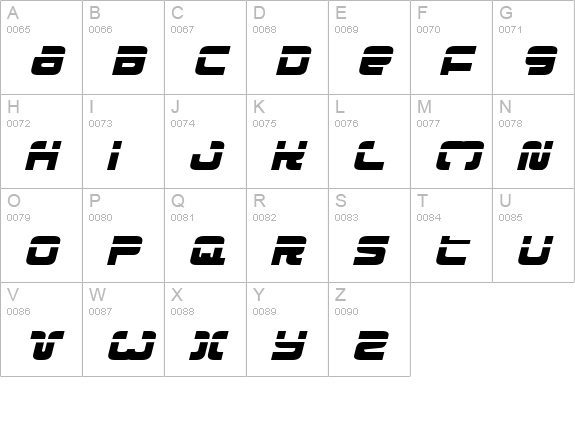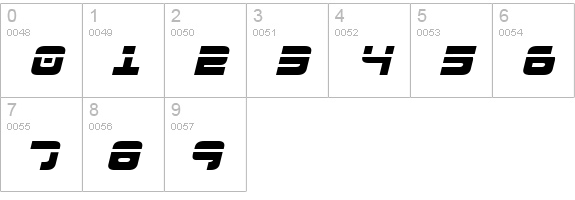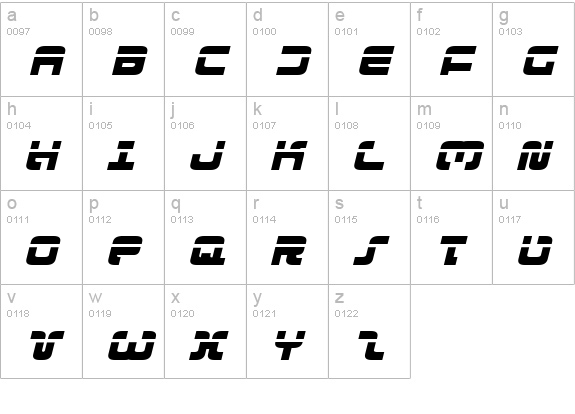
Exedore Laser Italic is a distinctive, italic variant in the Exedore typeface family \xE2\x80\x94 well suited to design and typography projects.
Exedore Laser Italic font combines sleek, futuristic design with a touch of elegance, making it a versatile choice for a wide range of creative projects. The sharp, laser-cut appearance of the italicized characters adds a dynamic and modern flair to any text or design. With its unique style and bold presence, Exedore Laser Italic font is sure to make a statement and captivate the attention of viewers. Best of all, Exedore Laser Italic font is available for free download at FontsMarket.com. This means you can easily access this eye-catching font and incorporate it into your projects without any cost. Whether you're working on branding materials, digital designs, or print projects, Exedore Laser Italic font offers a contemporary and distinctive look that is bound to leave a lasting impression. Download it today and elevate your designs with this striking typeface.